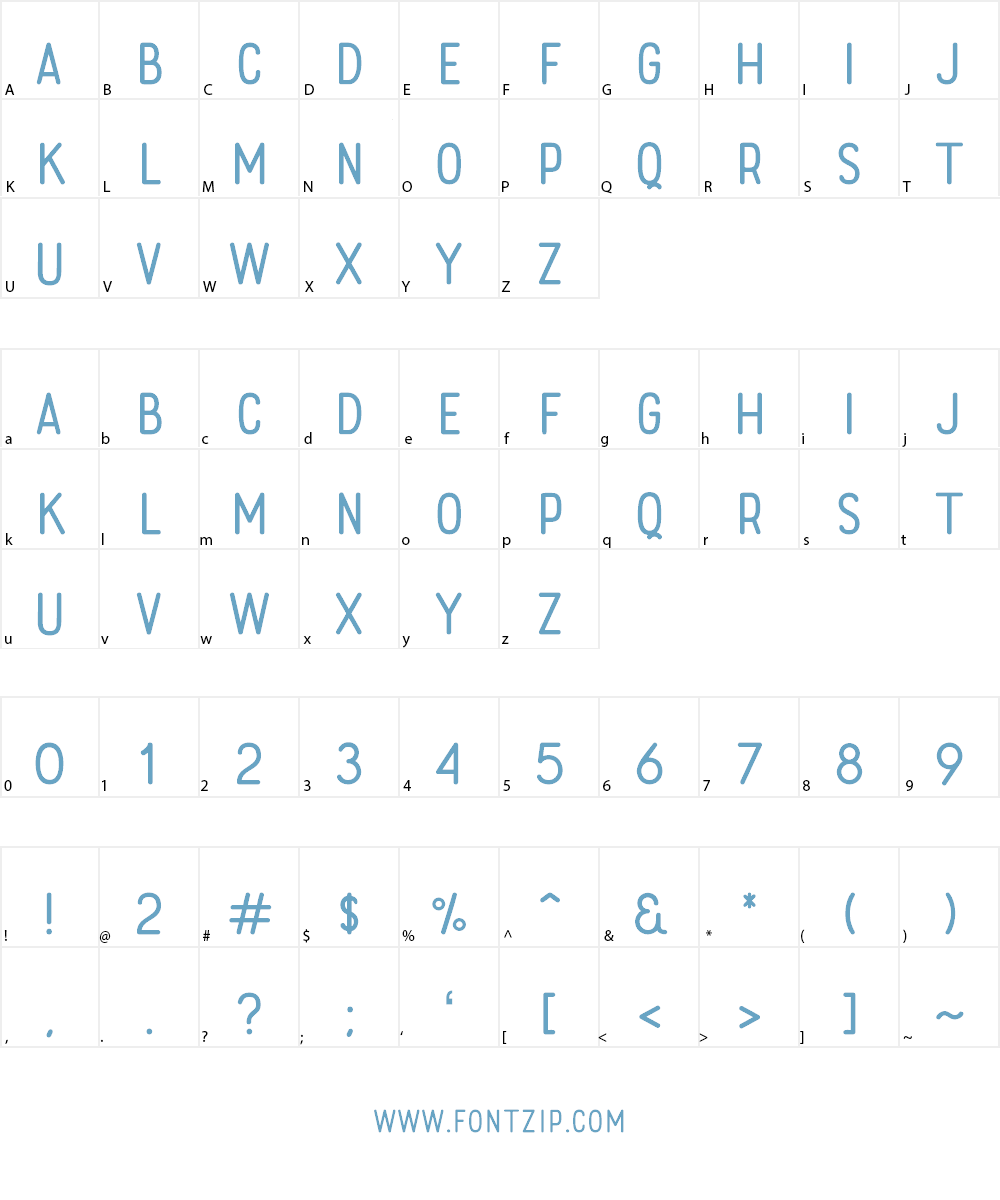
Rolade is an all caps rounded sans typeface, based on elegant vintage style. and from one of my sketch last year, you can check it here == https://goo.gl/TPqiTw